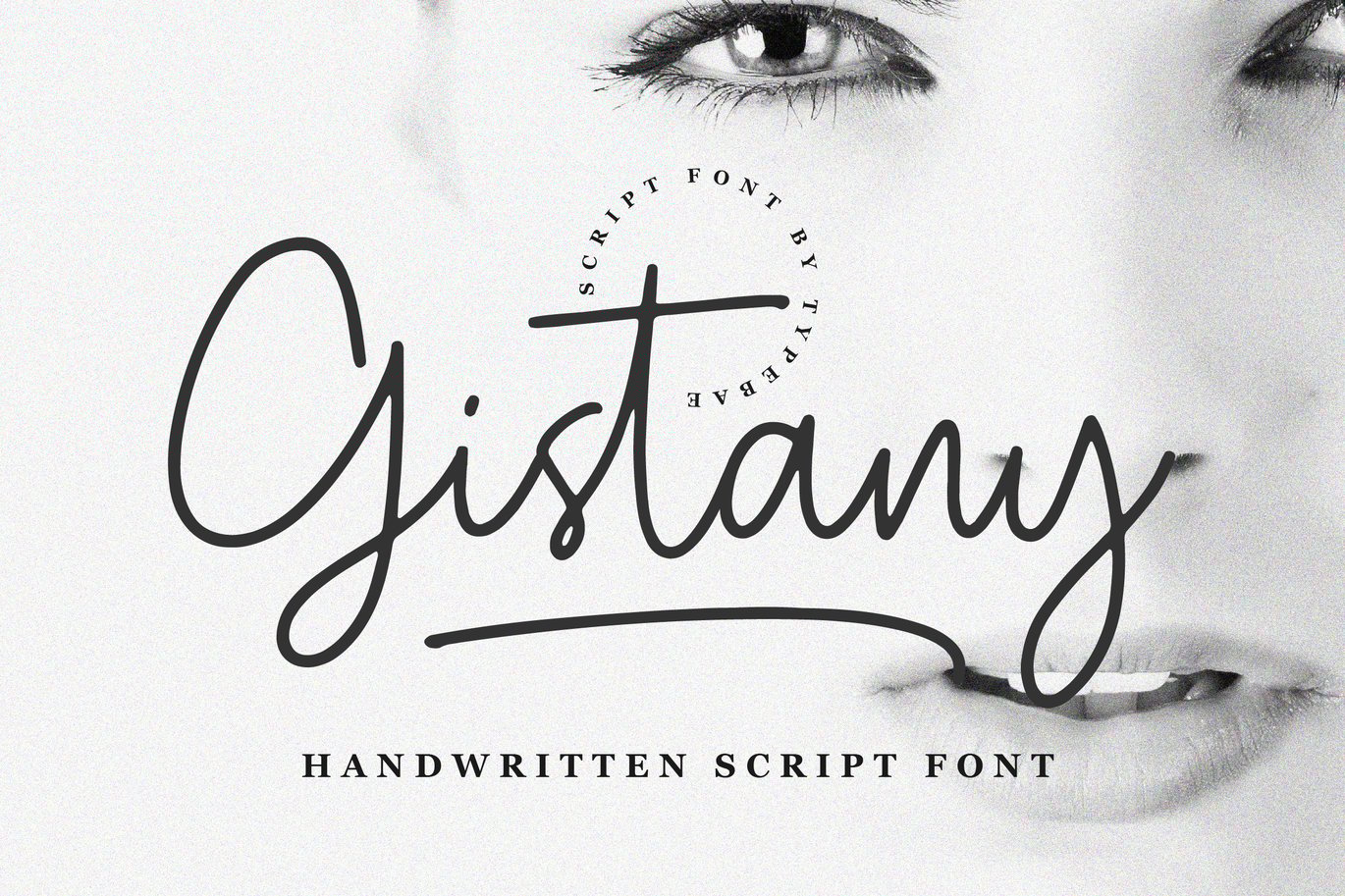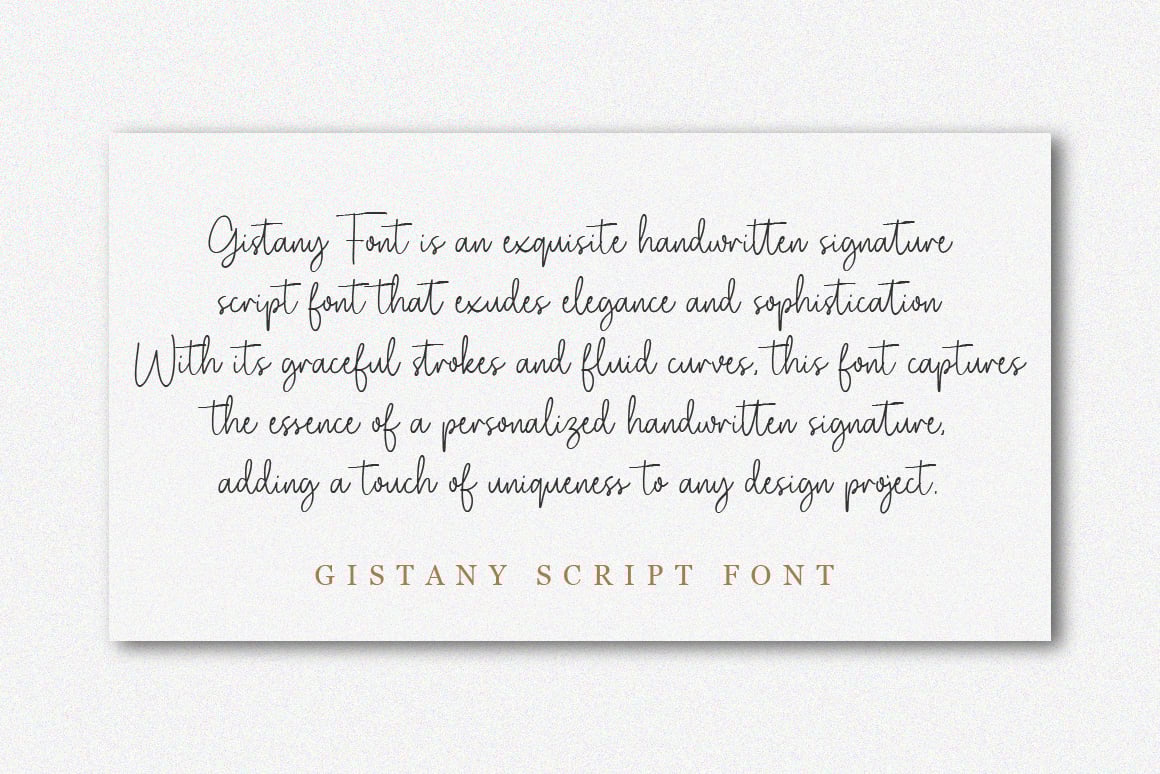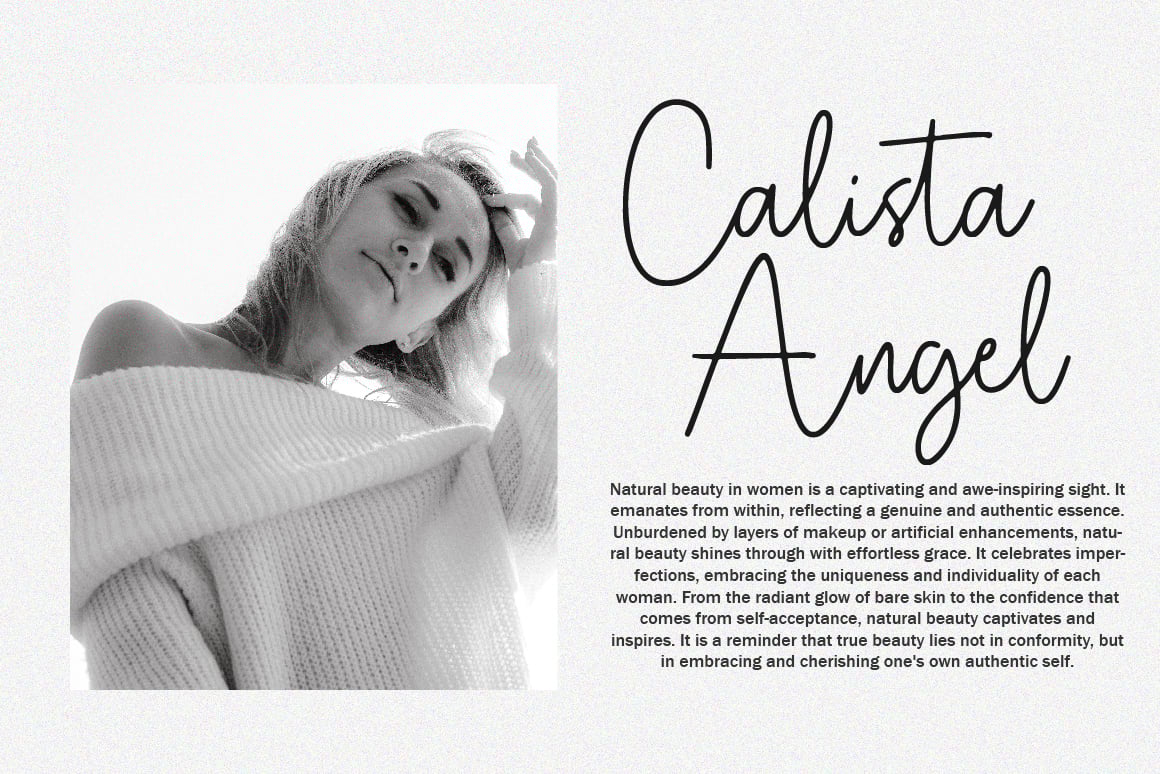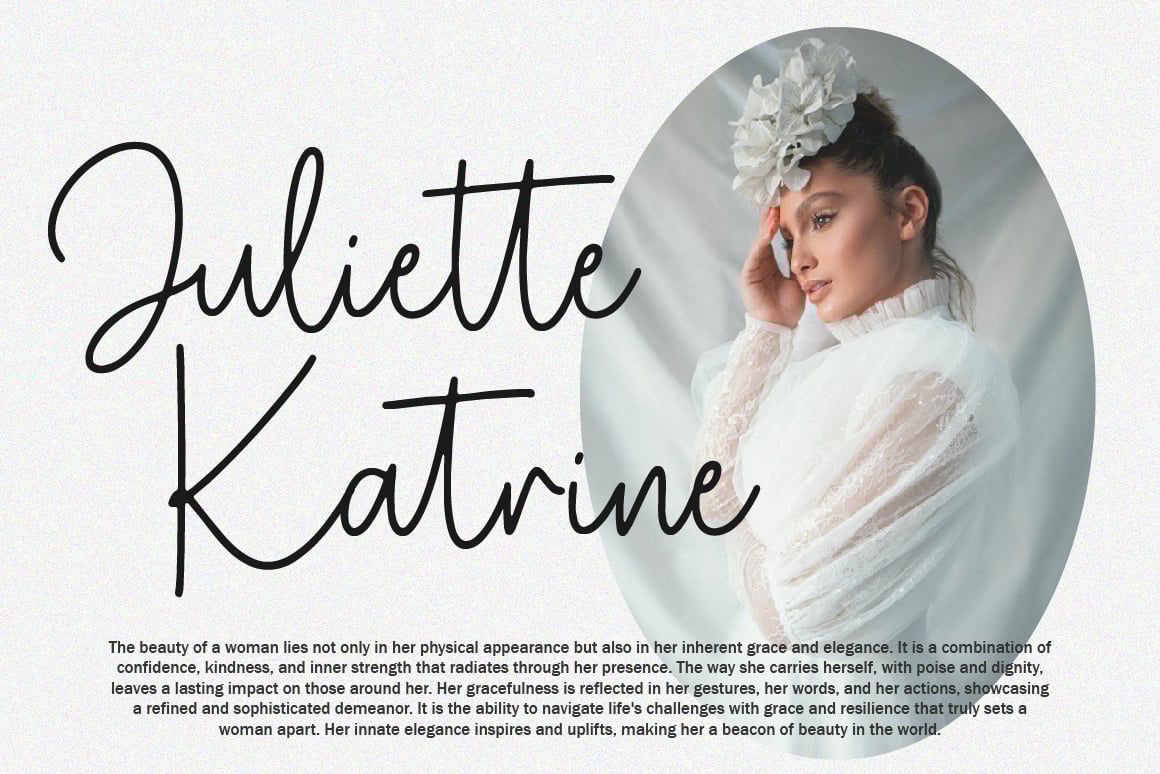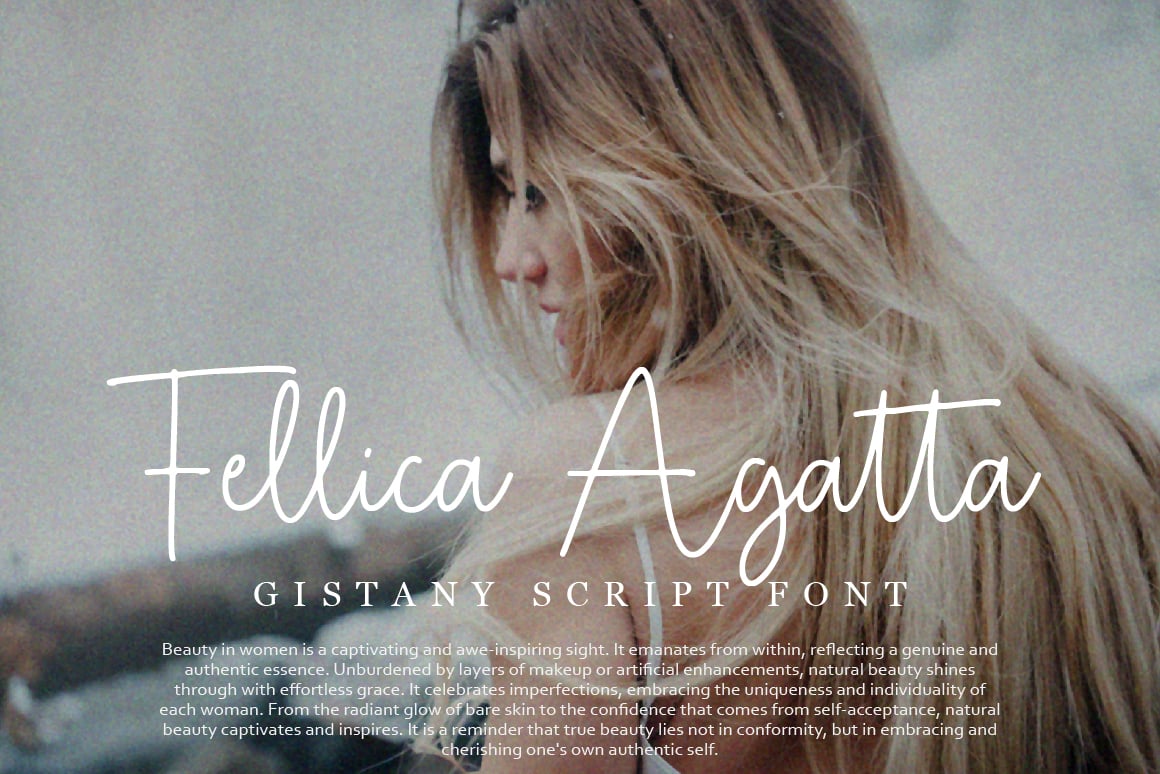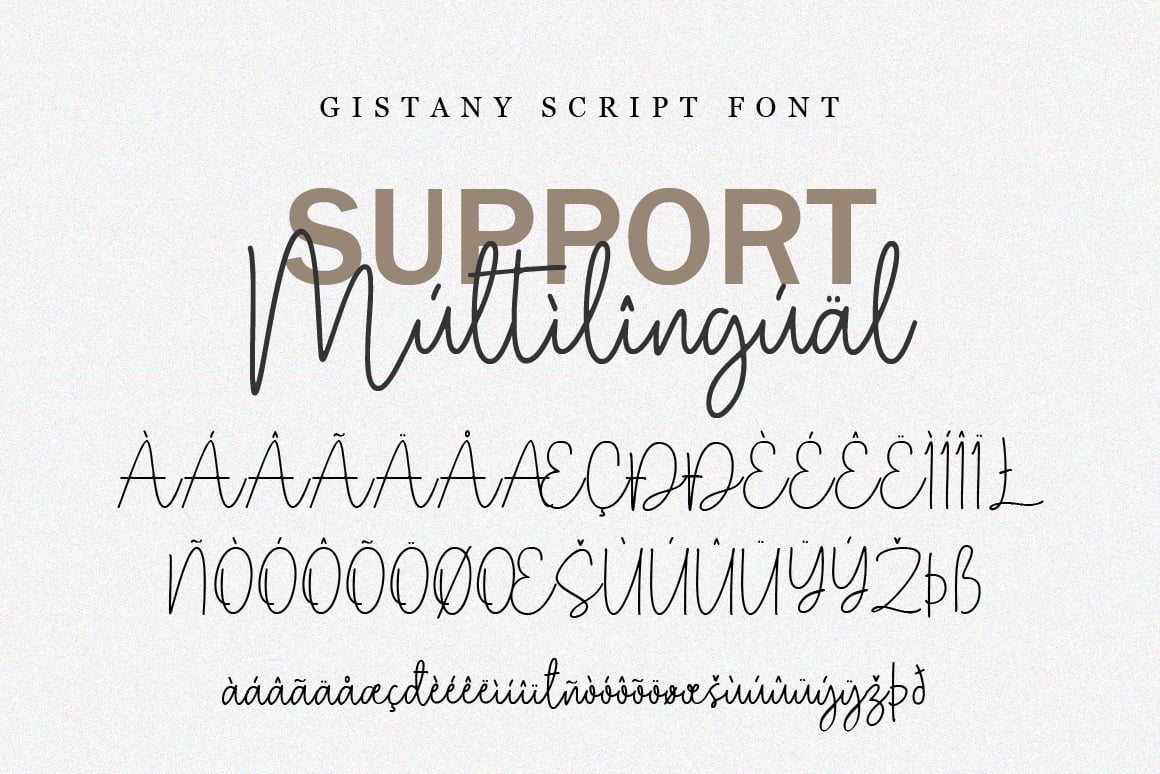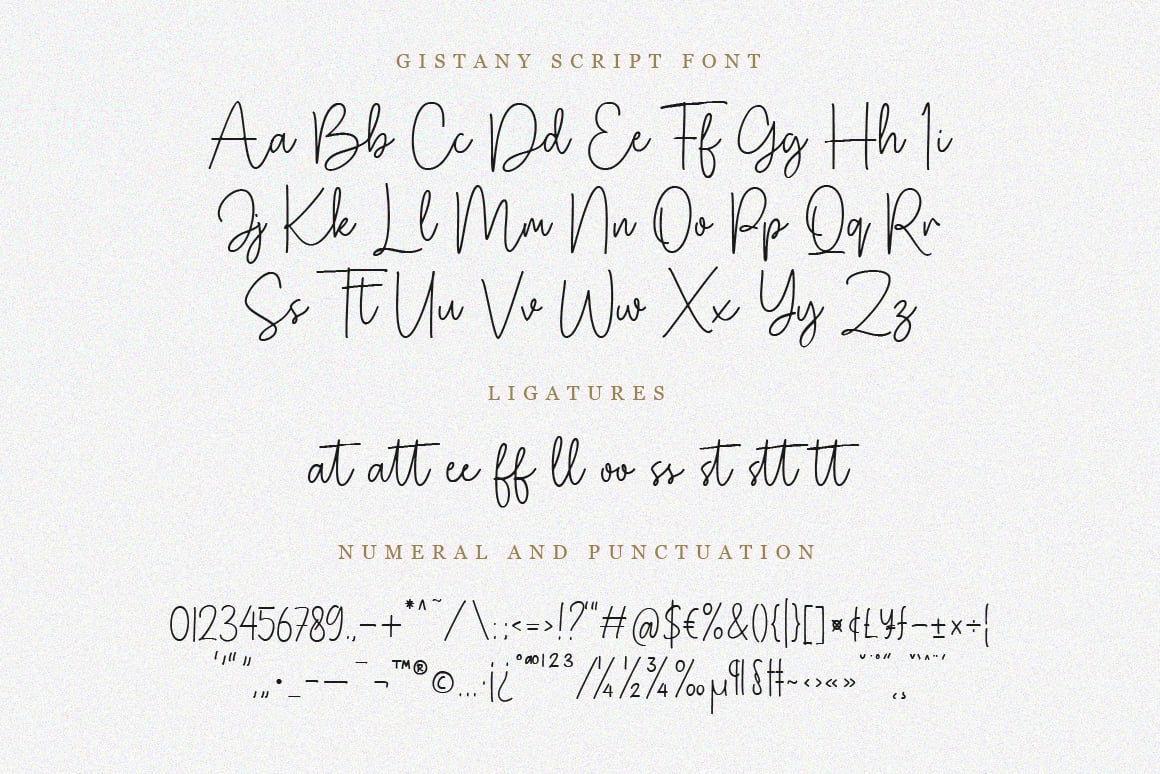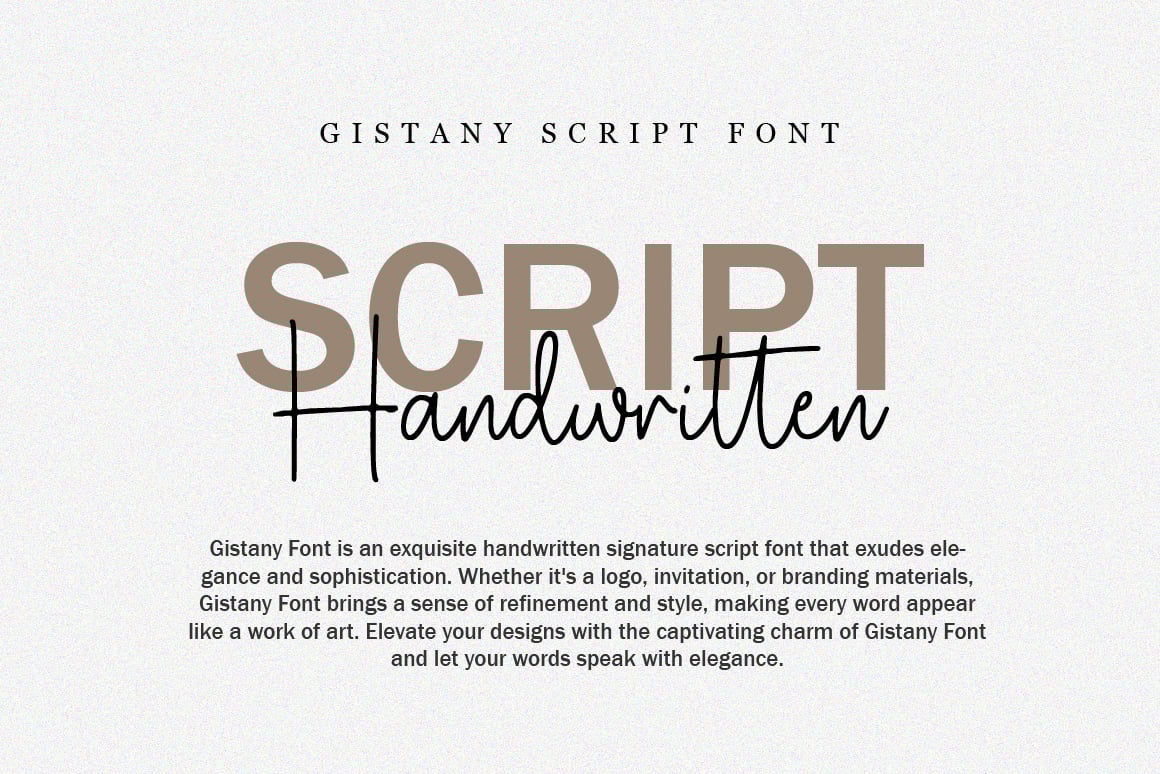
Gistany Handwritten Script Font
Gistany Font is an exquisite handwritten signature script font that exudes elegance and sophistication. Whether it’s a logo, invitation, or branding materials, Gistany Font brings a sense of refinement and style, making every word appear like a work of art. Elevate your designs with the captivating charm of Gistany Font and let your words speak with elegance.
*Full alphabet and punctuation
*Ligature and swashes feature
*Multilingual Support: Afrikaans, Basque, Breton, Catalan, Danish, Dutch, English, Finnish, French, Gaelic (Irish, Scots), German, Icelandic, Indonesian, Irish, Italian, Norwegian, Portuguese, Saami (Southern), Spanish, Swahili, Swedish.